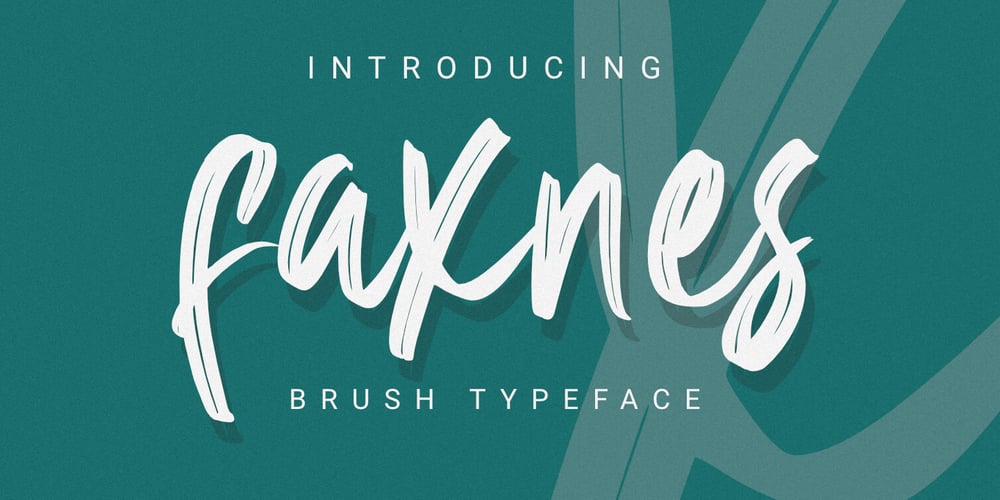
Faxnes Font Family was designed by Toni Dzulham and published by Dumadi. Faxnes contains 1 styles and family package options. Faknes – Handwritten is a design font with a natural brush style and unique texture that can enhance the quality of your designs.Faknes – This handwriting is perfect for designs, logos, social media, brands, advertisements, product designs, handwritten quotes, product packaging, headers, posters, merchandise, and other designs.What’s Included:+ Standard glyph+ Ligature+ Web Fonts+ Multilingual Accent+ Works on PC & Mac, Simple installationAccessible in Adobe Illustrator, Adobe Photoshop, Adobe InDesign, even works in Microsoft Word. PUA Coded Characters – Fully accessible without additional design software. Fonts include multilingual support+ Images used: All photos/images/vectors used in the preview are not included, are meant for illustration purposes only.Thank You